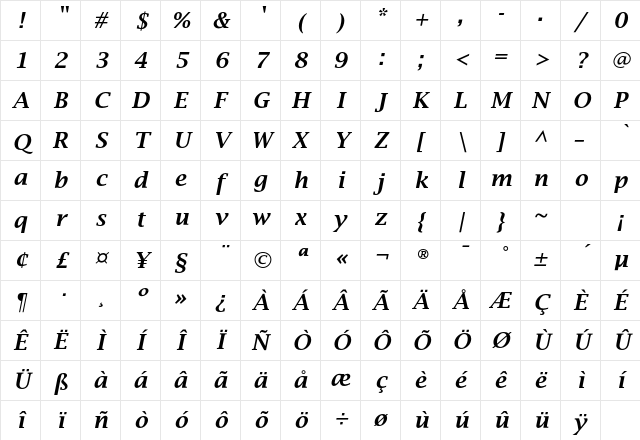
LucidaBrightEF DemiBoldIta
Style: DemiBoldIta
LucidaBrightEF Family
Design Context for LucidaBrightEF
LucidaBrightEF is a composed and adaptable typeface that performs quietly and consistently across a wide range of design contexts. Its bold stroke weight gives it real presence on the page.